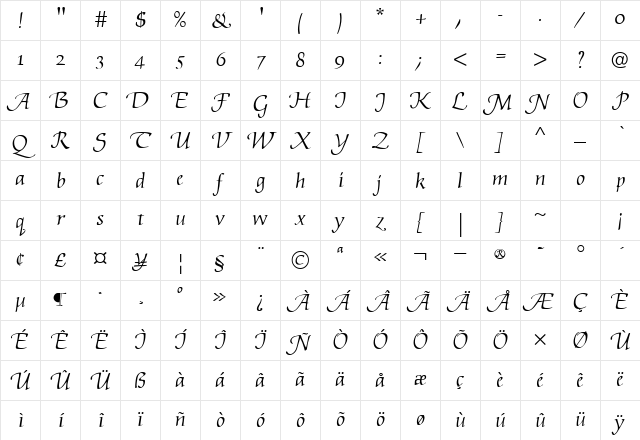
Artemisia EF Light Free Font
Artemisia EF Light
Design Context for Artemisia EF
Artemisia EF is a composed and adaptable typeface that performs quietly and consistently across a wide range of design contexts. Its slender proportions lend an understated elegance to any composition.
Pro Tip: Use Artemisia EF in both headline and body roles to test its range before committing to a single application.